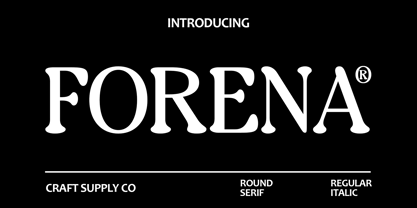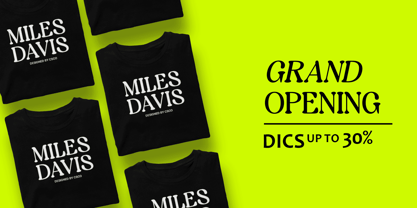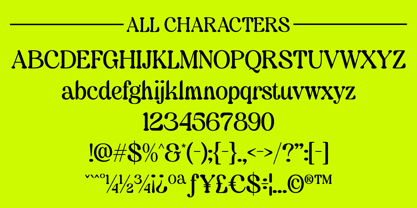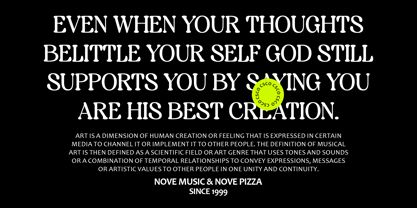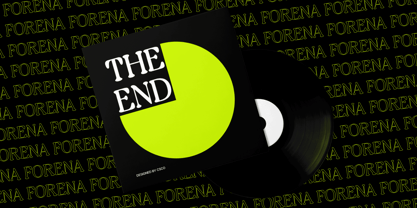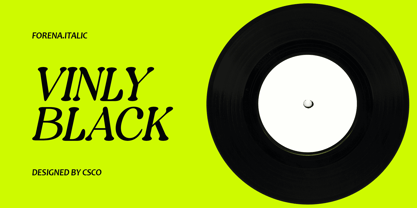
Forena
von Craft Supply Co
Die Schriftfamilie Forena wurde von Trio Nazzar Saputra, Wahyu Hadi Yuana entworfen und von Craft Supply Co veröffentlicht. Forena enthält 2 Stile und Familienpaketoptionen.
Forena – Round Serif: Elevating Modern Elegance
Sleek Modern Design
Forena – Round Serif presents a sleek and contemporary serif typeface, blending modern sophistication with timeless charm.
High Contrast Elegance
With its high contrast design, Forena exudes an air of elegance and refinement, making it ideal for projects that require a touch of sophistication.
Rounded Serif Details
Forena’s rounded serif details add a unique twist to its modern design, infusing it with a sense of warmth and approachability.
Versatile Application
Suitable for a wide range of applications, from branding and editorial design to digital platforms, This font offers versatility and elegance in every use.
Summary: Forena – Round Serif
This font epitomizes modern elegance with its sleek design, high contrast, and rounded serif details. Versatile and sophisticated, it lends a touch of refinement to any project, ensuring a timeless and elegant result.